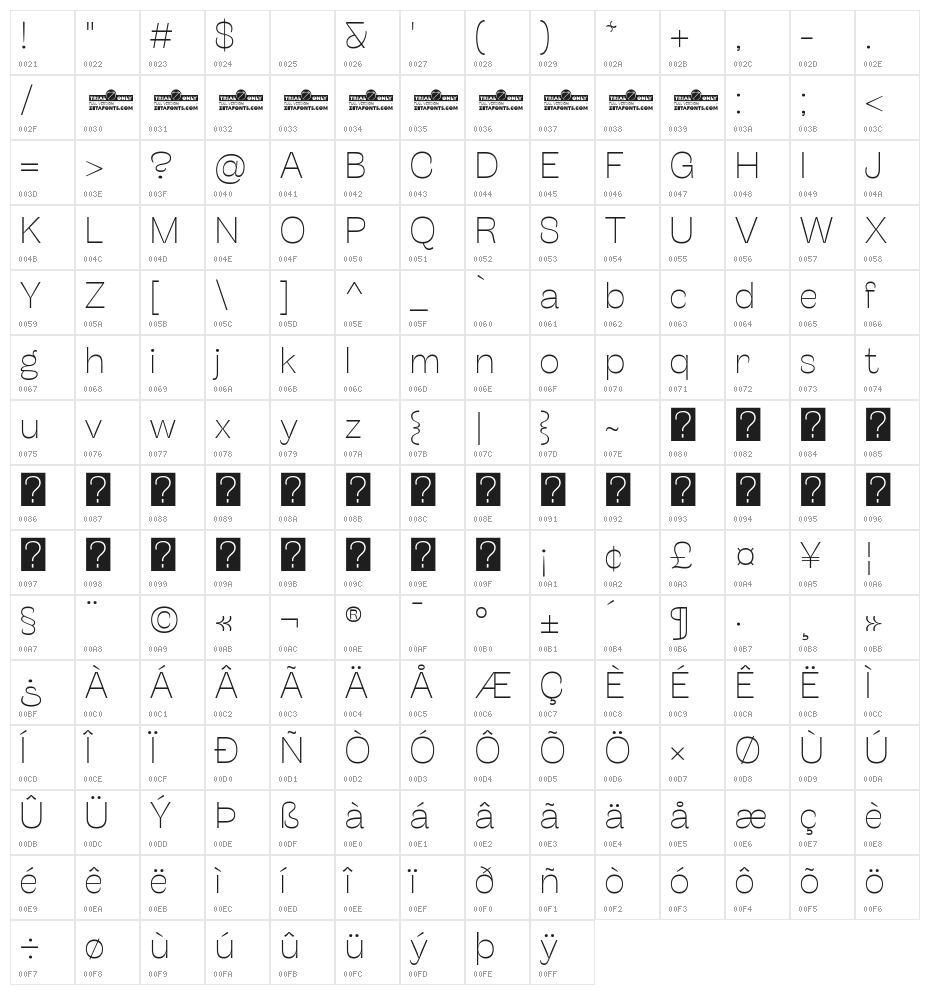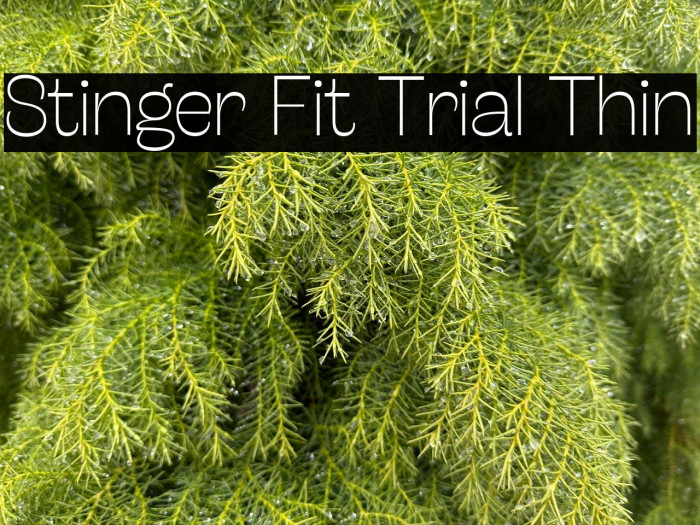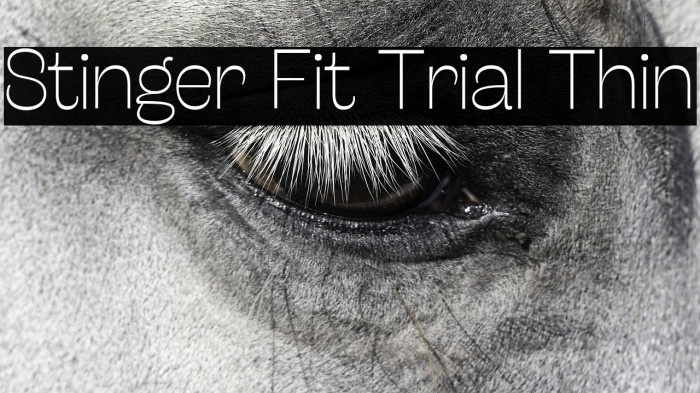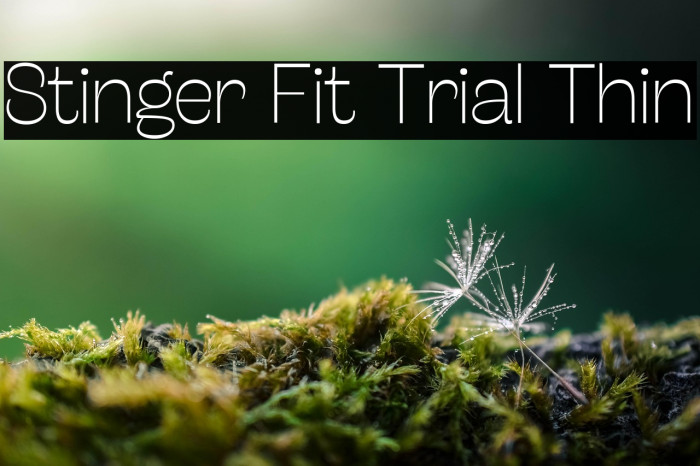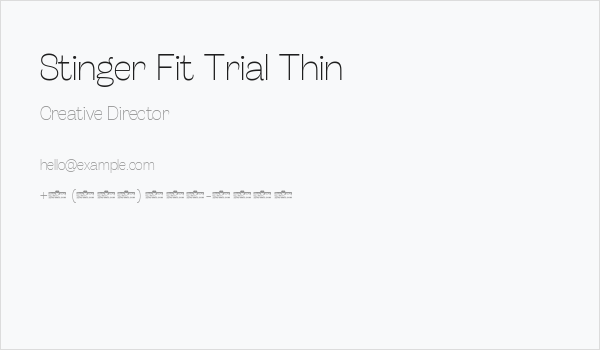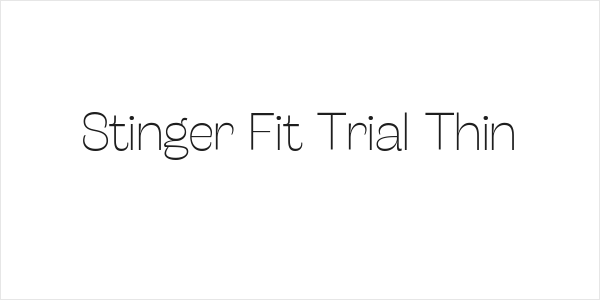
Stinger Fit Trial Thin Font
Stinger Fit Trial Thin Description
This font features a sleek and modern design with a thin, elegant line weight. The characters are clean and minimalistic, offering a contemporary aesthetic that is both stylish and functional. The uppercase and lowercase letters maintain a consistent geometric form, providing a sense of harmony and balance. The numerals and special characters are designed with the same attention to detail, ensuring readability and versatility across various applications. The overall appearance is sophisticated, making it suitable for a wide range of design projects.
Proposed ProjectsIdeal for branding, editorial design, digital interfaces, and minimalist projects.